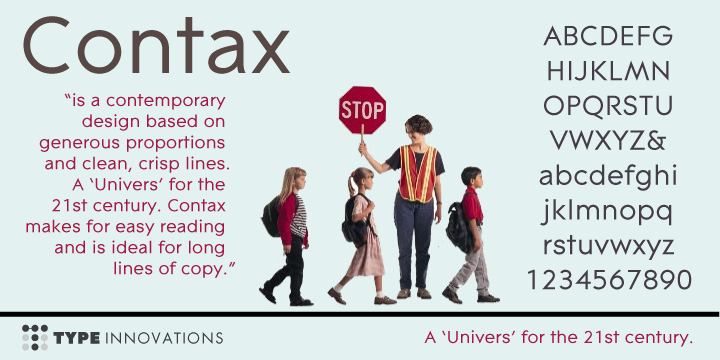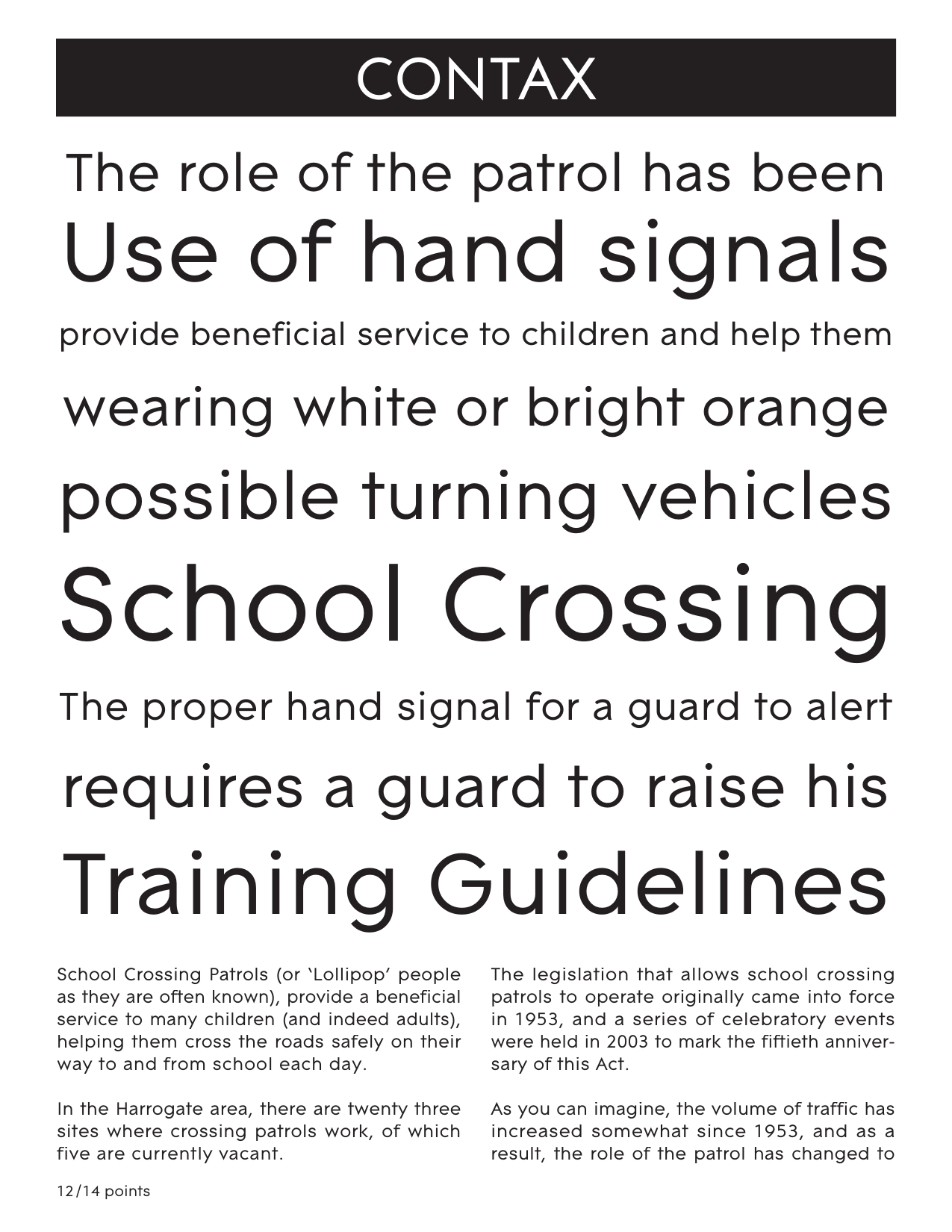
Contax
In the advertising industry, I was often asked to supply the art directors with ideas for a san serif type design that was not the standard Helvetica or Univers. They wanted a fresh new approach, something with generous proportion, like Avant Garde perhaps, but not as uniform in proportions. A font that would lend itself well to a wide, as well as long columns of text with lots of leading.
So, I rolled up my sleeves and designed a font that meet all their criteria. Contax is the new 'Univers' for the 21st century. Contax has inspired the enormously popular and expanded Contax Pro and Contax Sans family of weights and styles. Check out both Contax Pro and Contax Sans today.